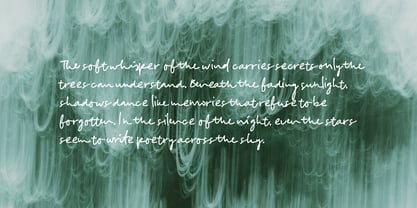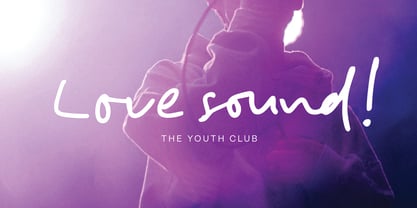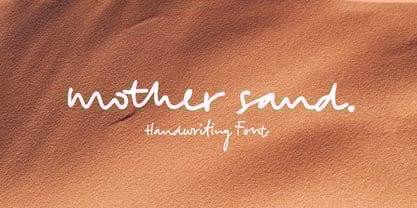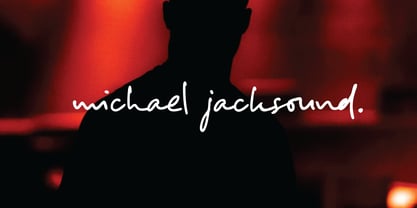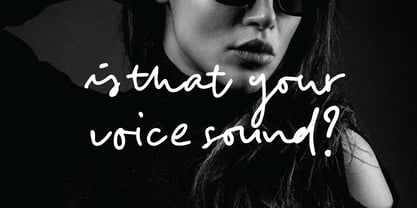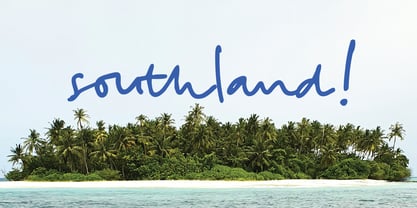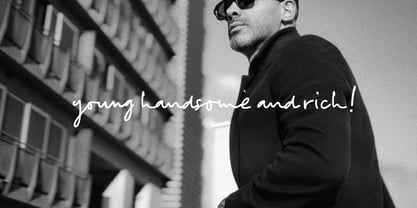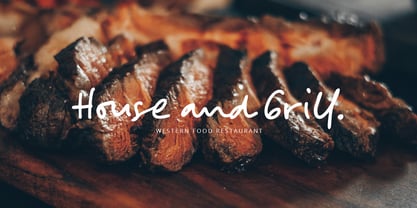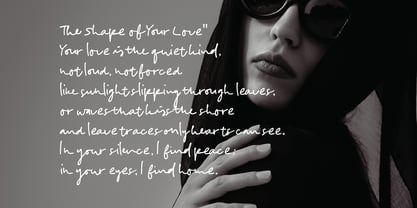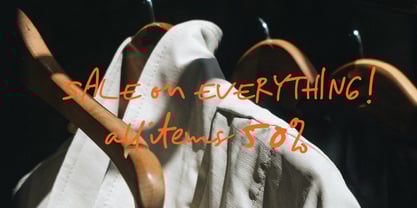
Mother Sand
by Scratch Design
The Mother Sand Font Family was designed by Gitayogi Irhandi and published by Scratch Design. Mother Sand contains 1 styles.
Capture the feeling of real, quick handwritten notes with this natural script font from Scratch Design are created to look exactly like someone writing fast in their personal notebook. Every stroke feels spontaneous, smooth, and authentically human, making your design look warm, personal, and effortlessly genuine. Perfect for journals, planners, diaries, note-taking apps, study notes, social media quotes, casual branding, packaging, scrapbooks, zines, editorial layouts, digital stickers, and hand-drawn aesthetic designs. Its natural handwritten flow brings a relaxed, intimate energy that fits perfectly with creative, lifestyle, and cozy visual styles. Whether you’re a designer, illustrator, writer, or content creator, this font gives you a realistic handwritten touch without losing clarity and ideal for projects that need authenticity and personality. If you love fonts that feel real, relatable, and creatively expressive, this fast-handwritten script is ready to elevate your work. Download it now and bring your designs to life with the charm of true handwriting.
Designers: Gitayogi Irhandi
Publisher: Scratch Design
Foundry: Scratch Design
Design Owner: Scratch Design